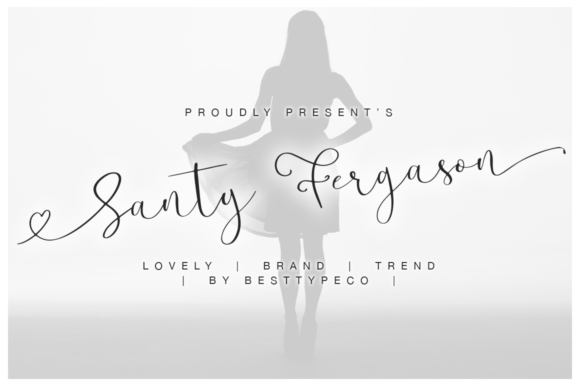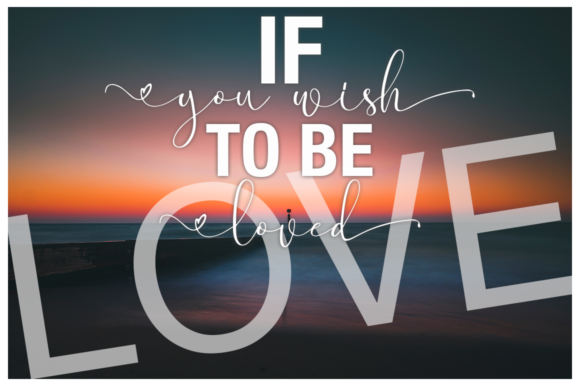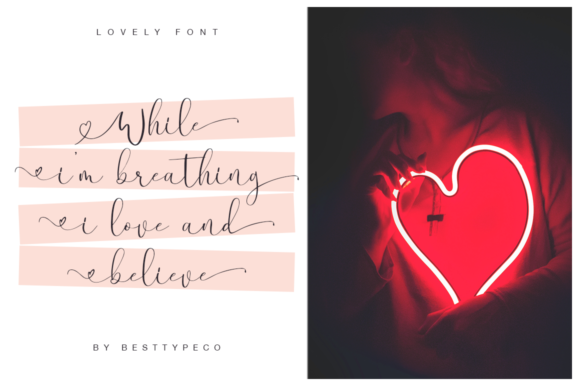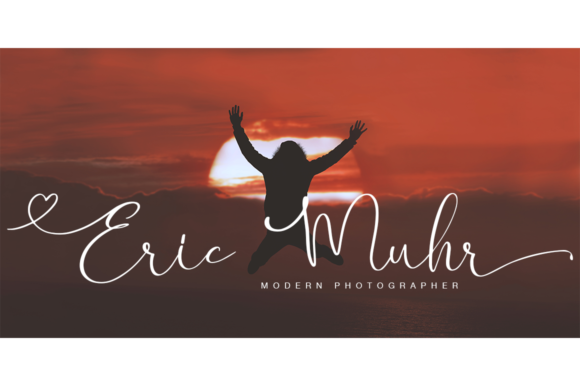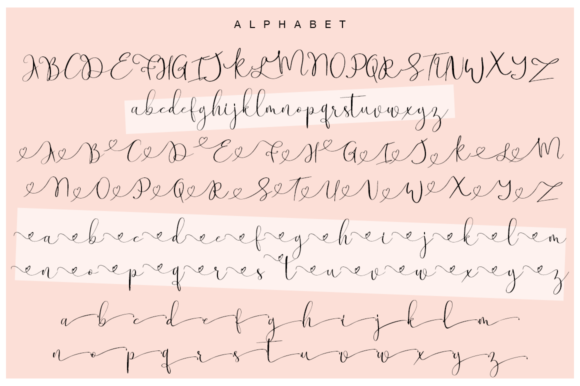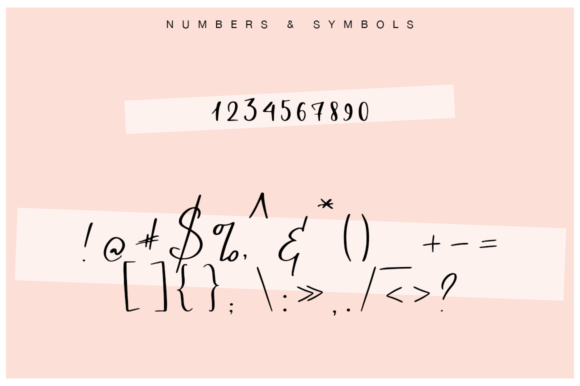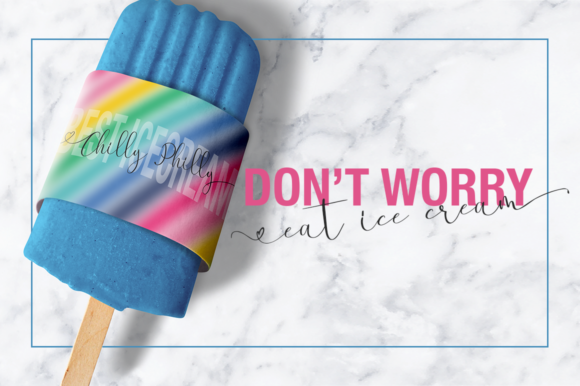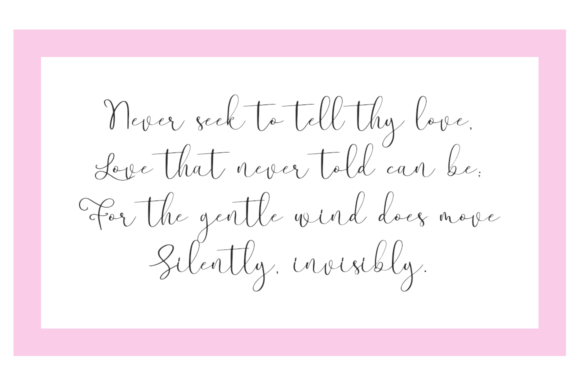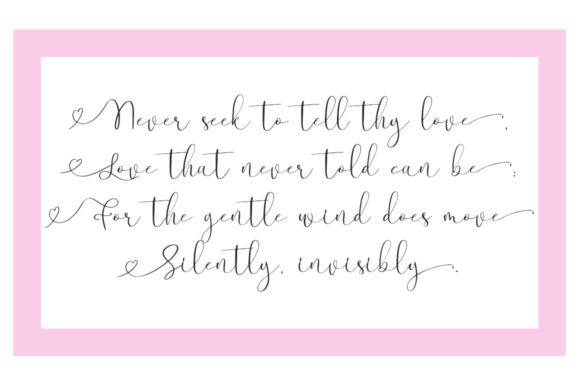
Santy Fergason Font
About Santy Fergason Font
Santy Fergason is a sweet and friendly handwritten font with a lovely look. Get inspired by its heart-themed swashes.